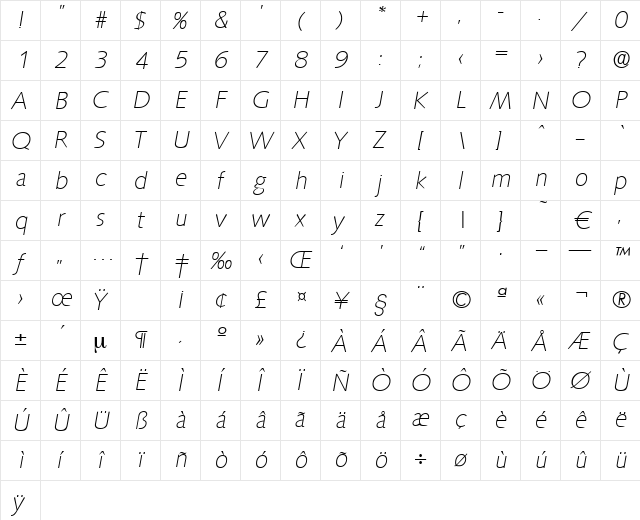
Saxony-XlightIta Regular
Design Context for Saxony-XlightIta Typeface
Saxony-XlightIta takes a measured approach to typography — its balanced proportions and neutral character make it a reliable workhorse for both digital and print work. The delicate stroke weight brings airiness and refinement to layouts.